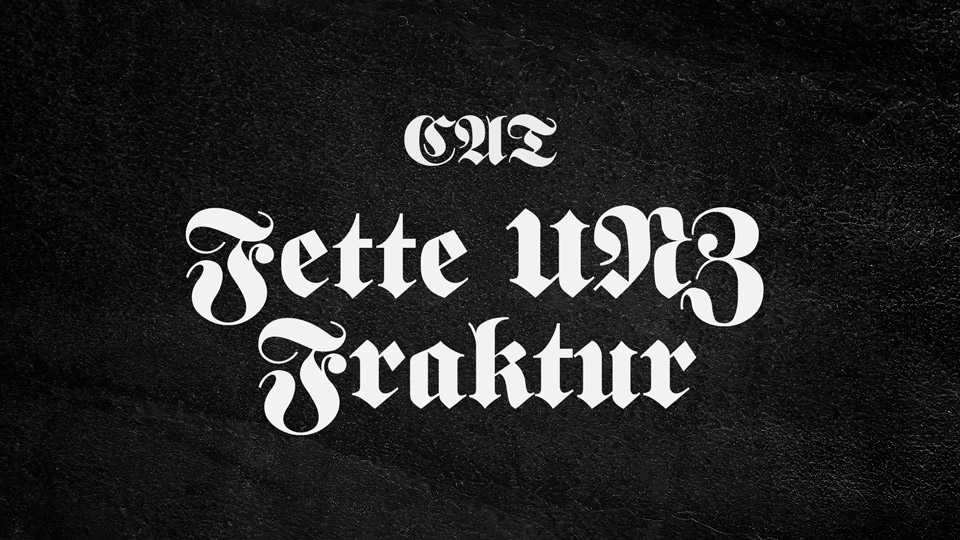
Download Fette UNZ Fraktur font, a blackletter typeface based on the design by Johann Christian Bauer for the C. E. Weber foundry, which was published in 1850 and became one of the most widely used Fraktur fonts.